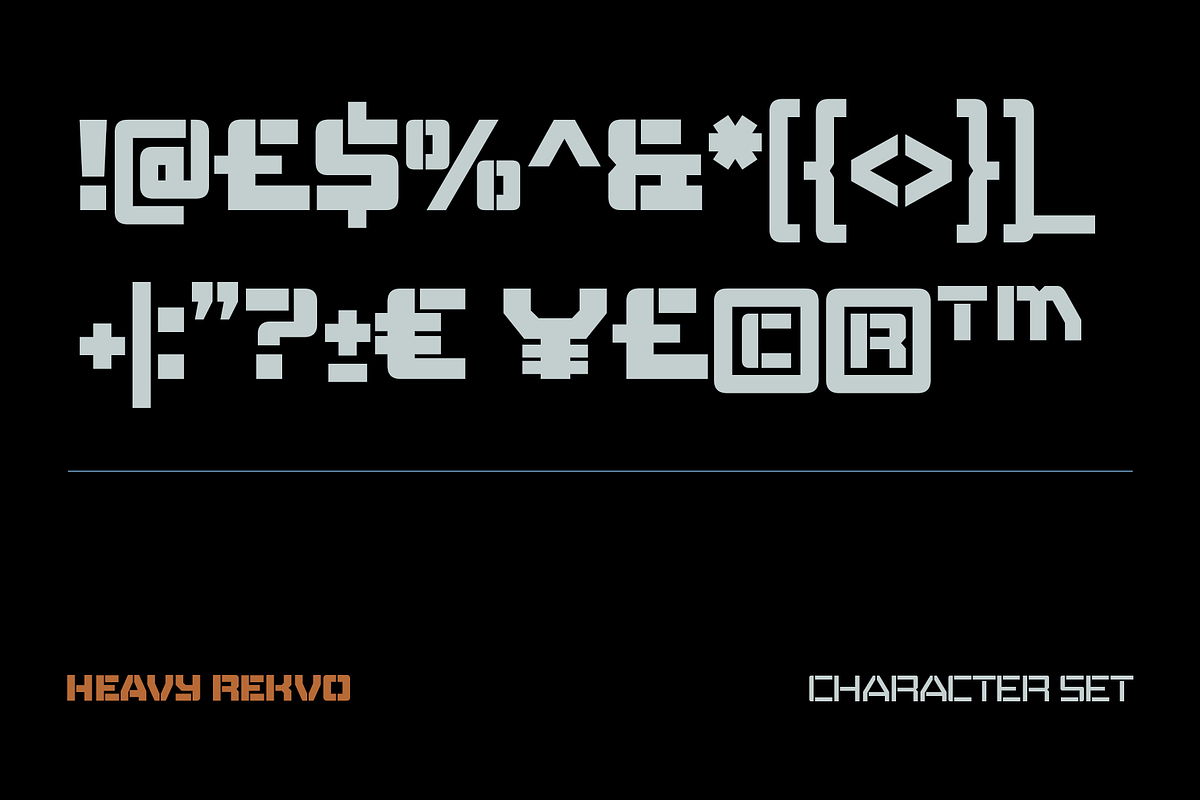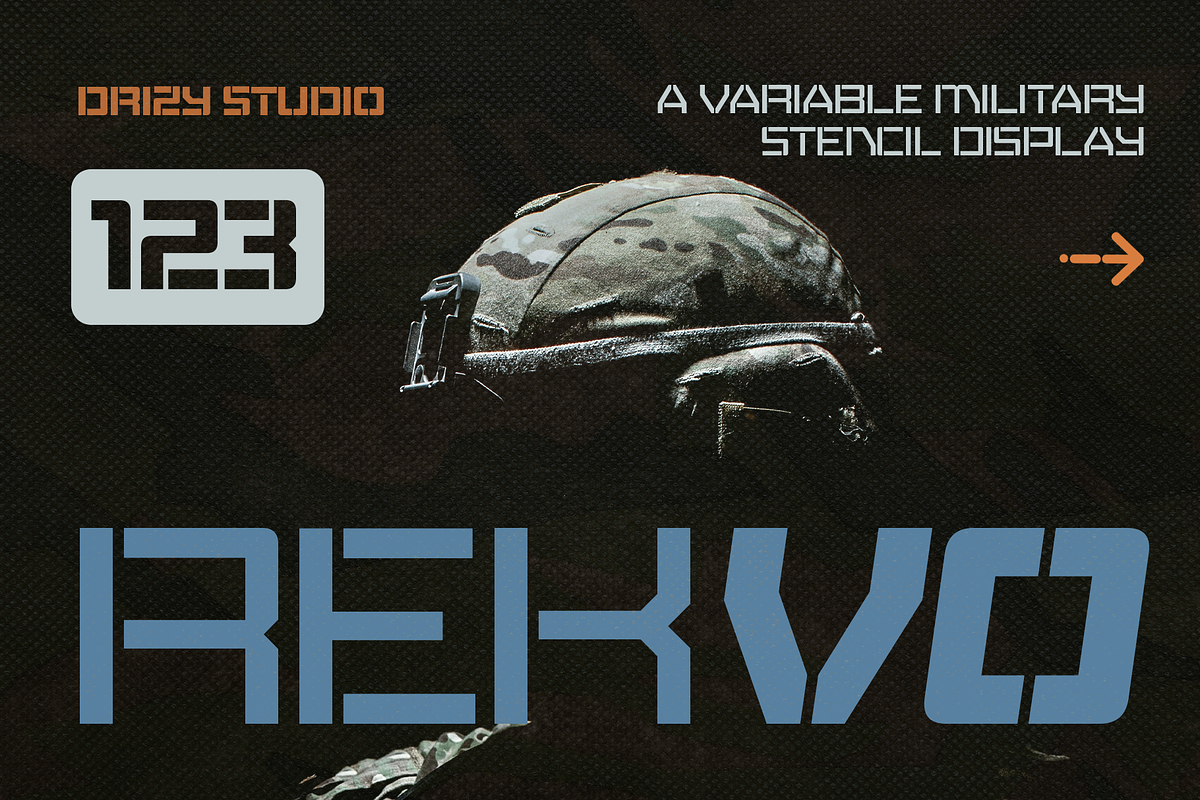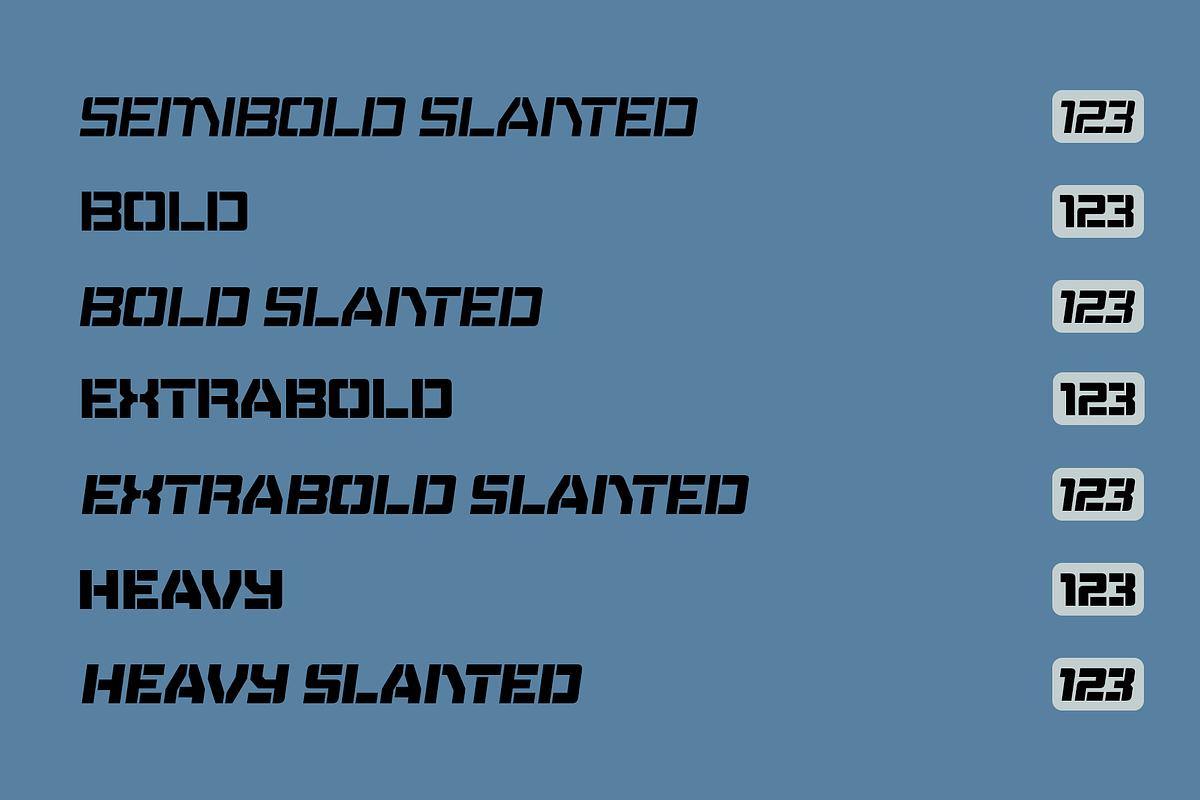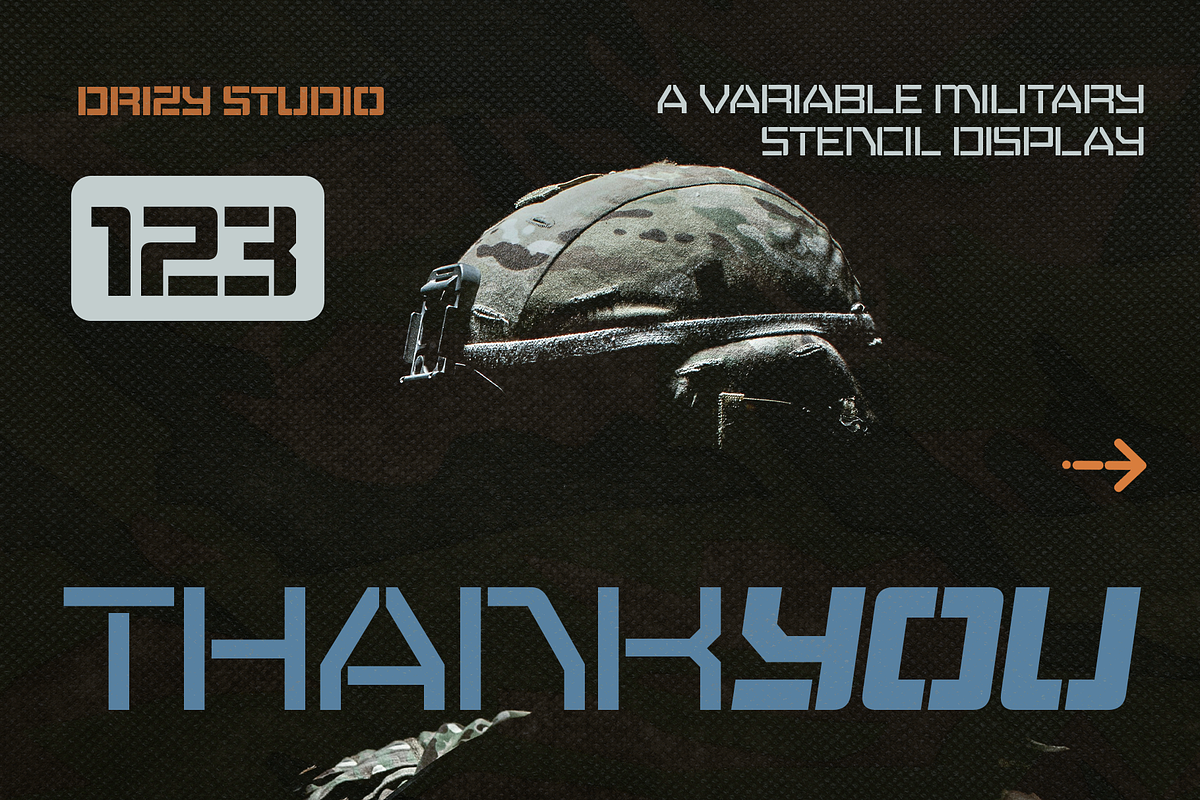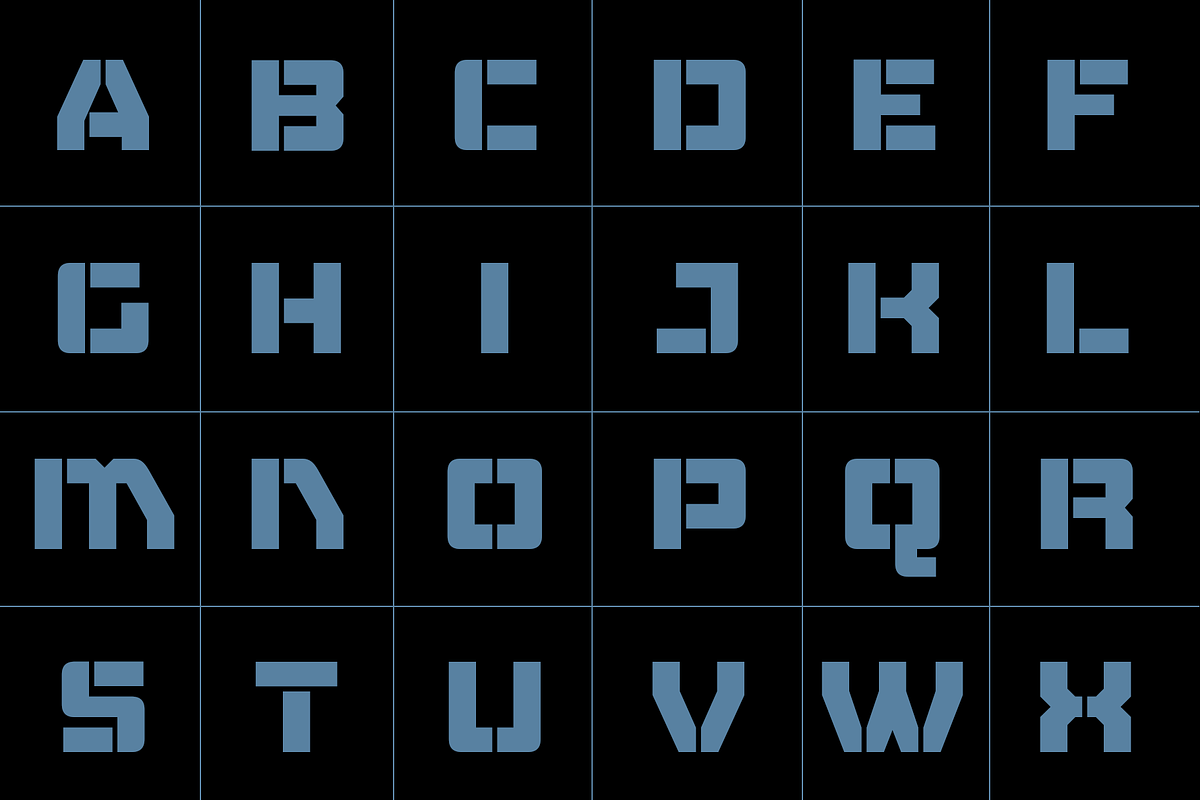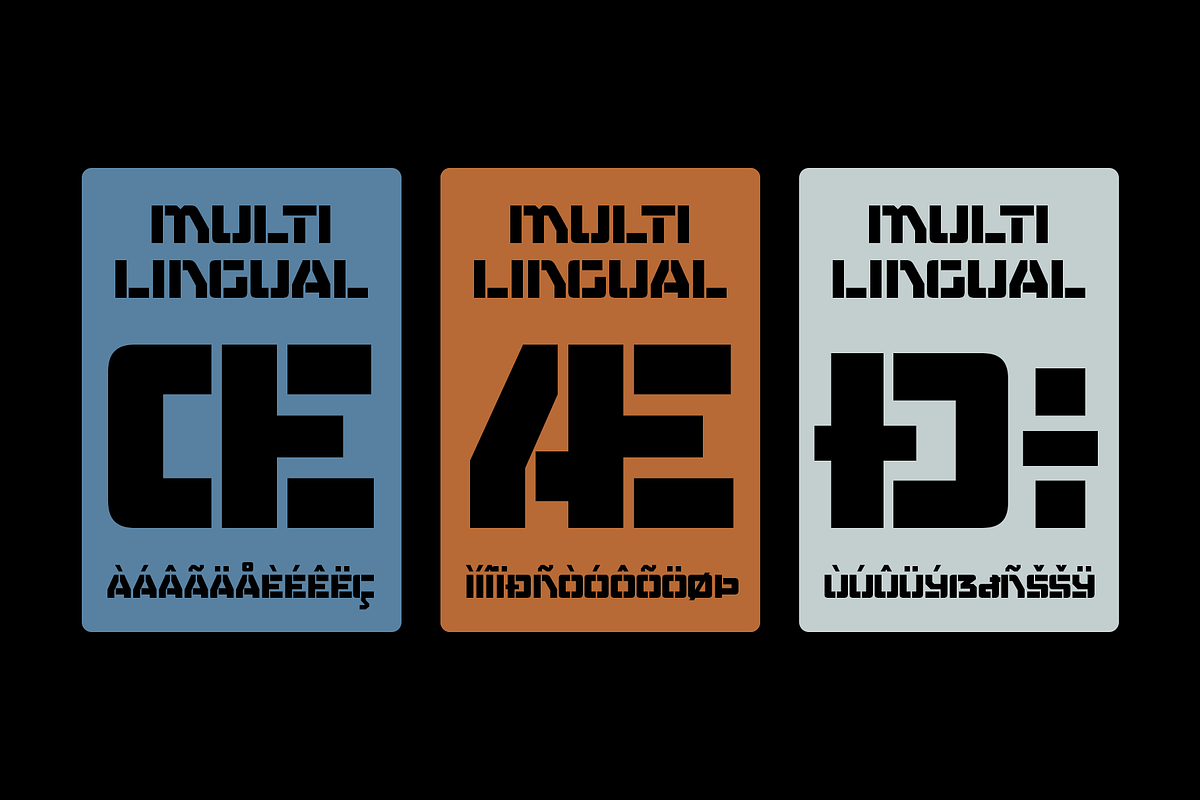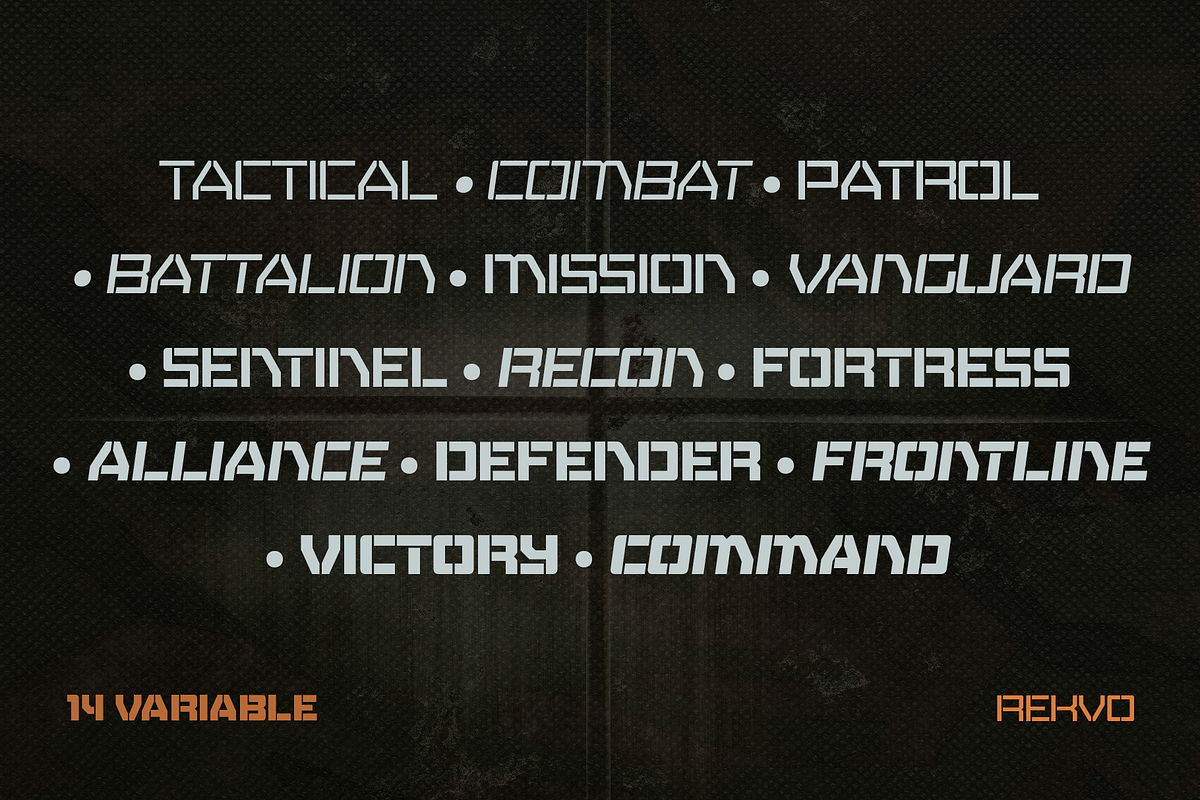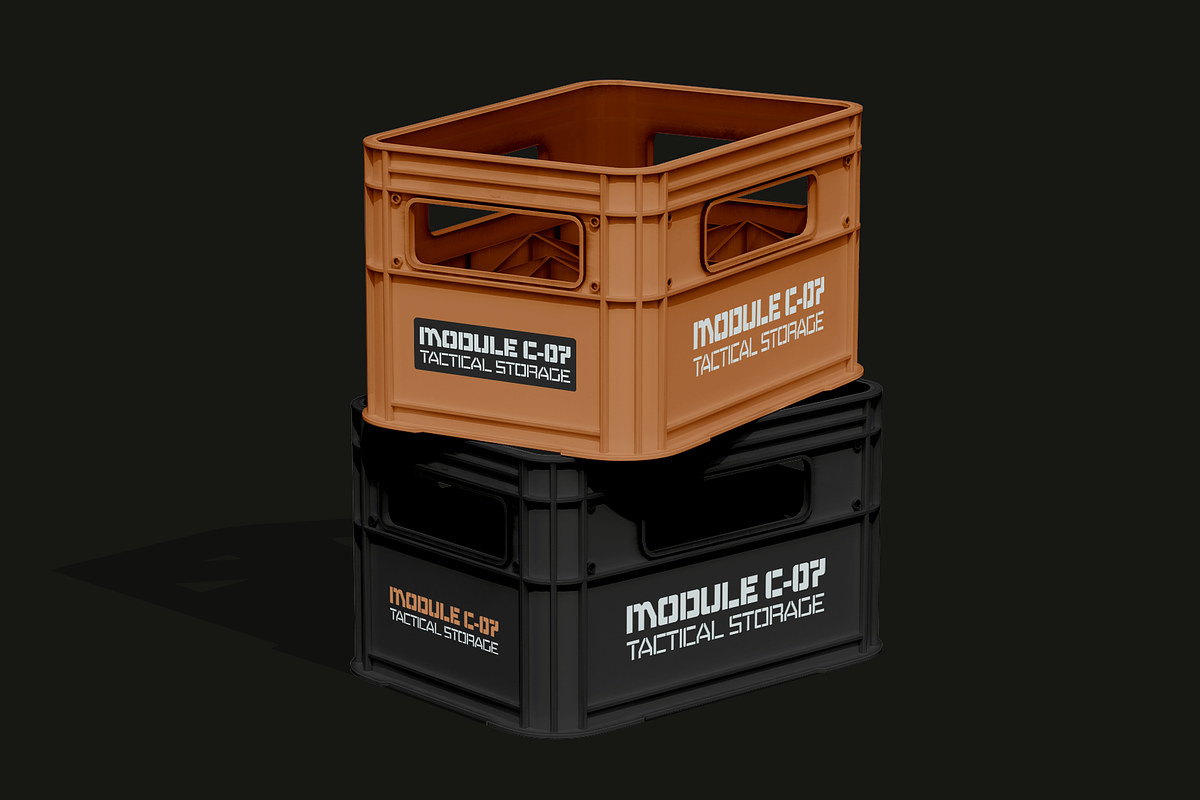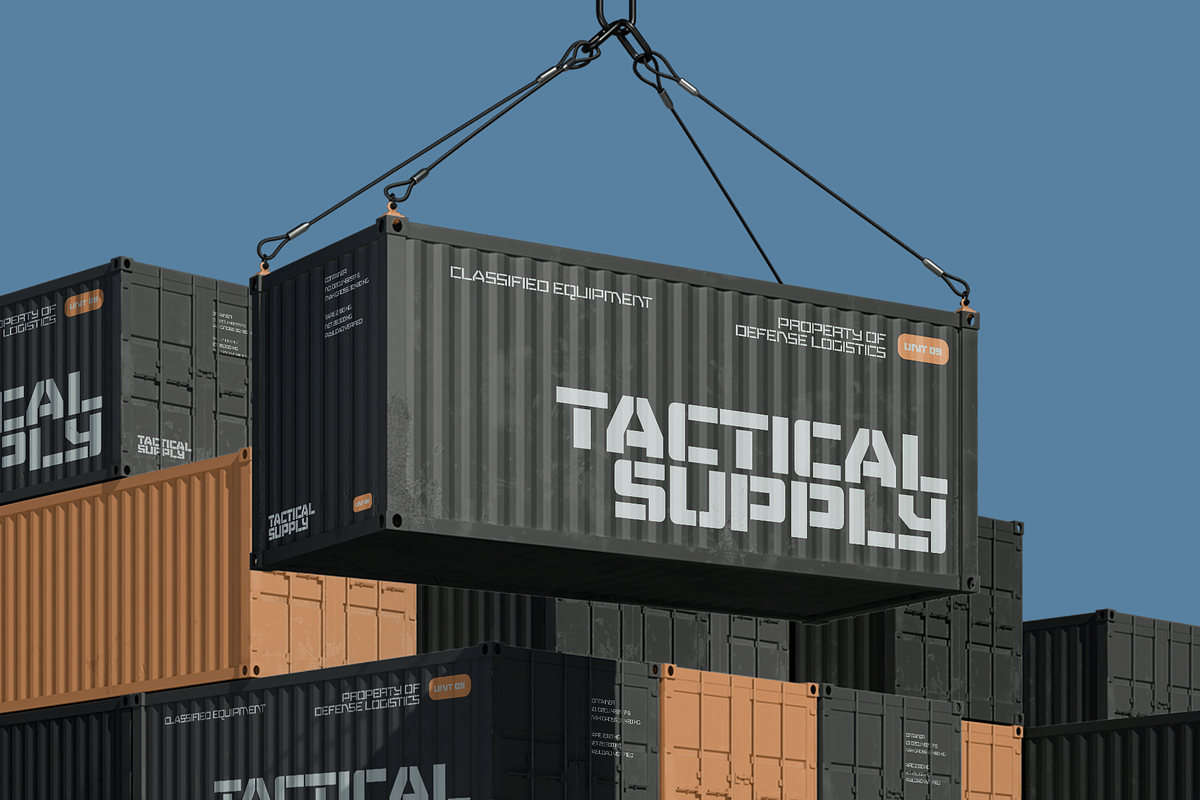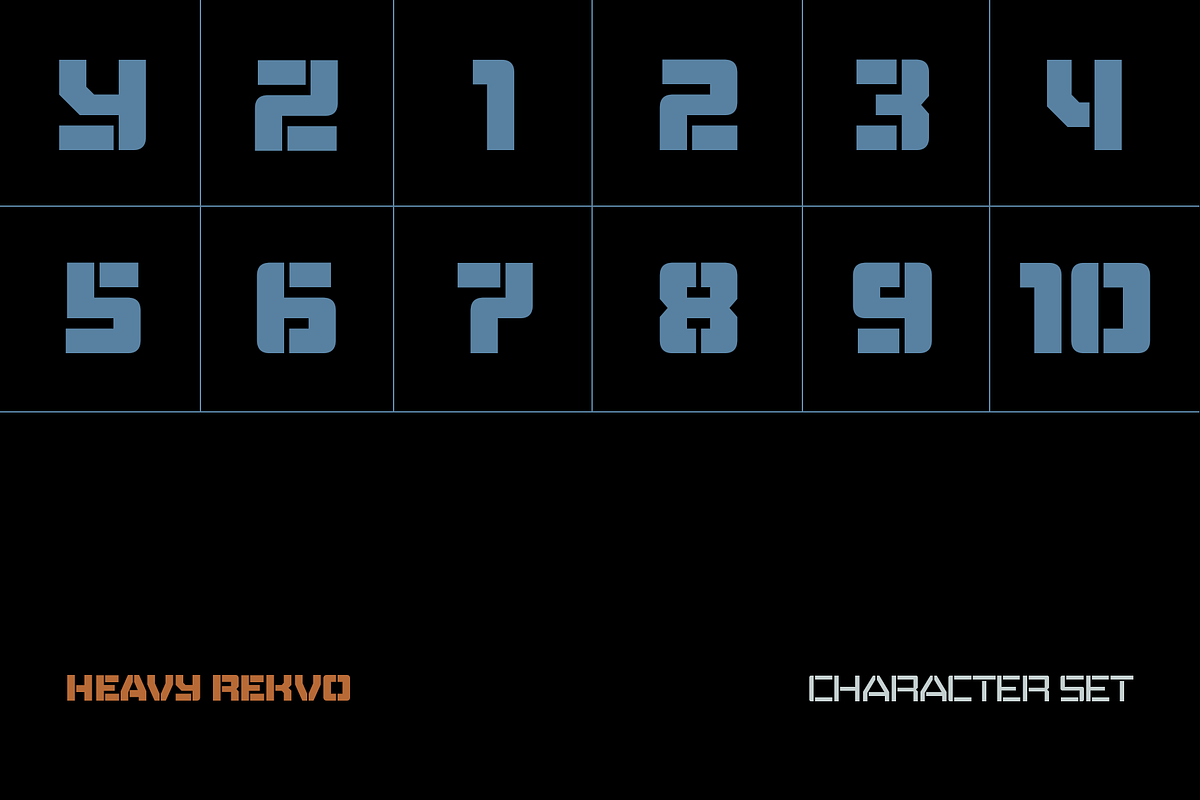
Rekvo – Variable Military Stencil
Rekvo – Variable Military Stencil Font
Bring a rugged, tactical edge to your designs with Rekvo, a bold variable military stencil font inspired by classic military lettering and industrial typography. Its strong, cut-out shapes create a commanding visual presence while the variable style gives you flexibility to adjust the weight and achieve the perfect look.
Perfect for military-inspired branding, badges, logos, posters, apparel, labels, packaging, sports graphics, gaming designs, and bold display typography. Rekvo is built to make every headline stand out with a powerful, utilitarian character.
Rekvo – Variable Military Stencil Font features:
Character Set
Punctuation & Numbers
14 Variable of Weights